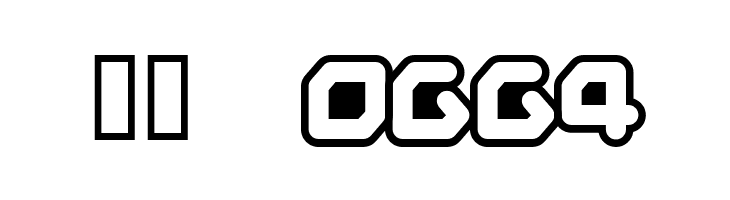
Setter Шрифта
- Шрифта: Setter
A bold, condensed, and angular font with a modern, geometric style.
A modern, angular font with a geometric and futuristic design.